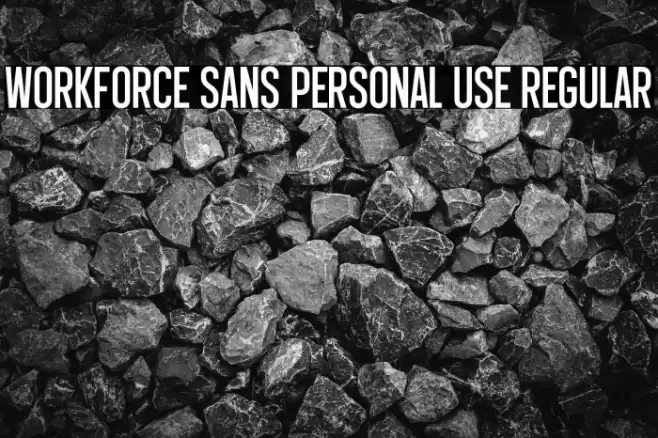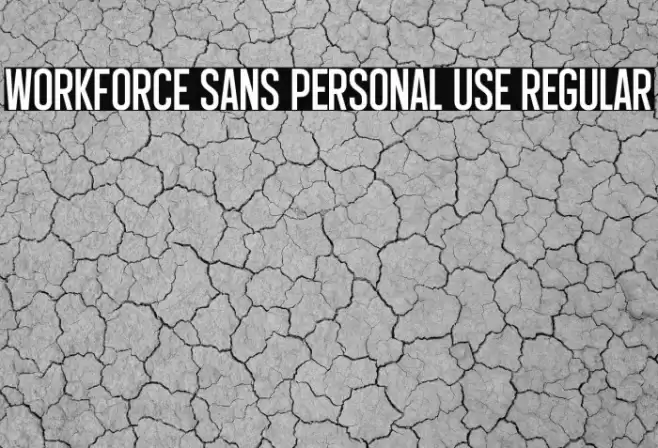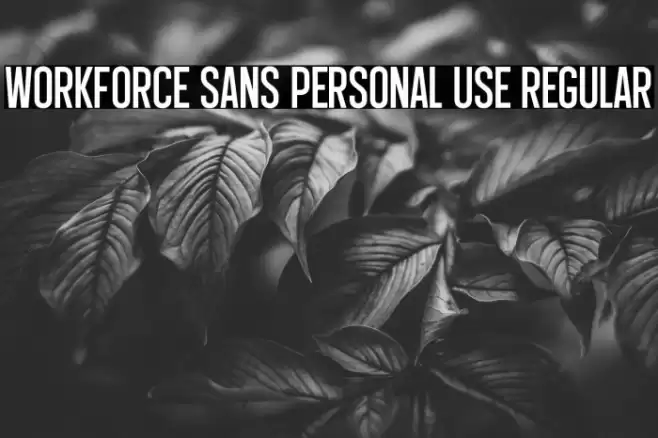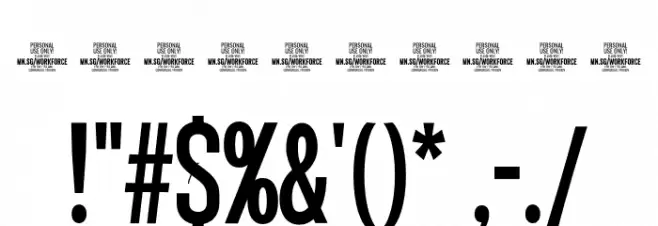
Workforce Sans PERSONAL USE Regular Font
Workforce Sans PERSONAL USE Regular Description
This font features a bold and impactful sans-serif style, characterized by its strong, clean lines and modern aesthetic. The uppercase letters are uniform in height, creating a cohesive and structured appearance. The font's design emphasizes clarity and readability, making it suitable for various applications. The characters are evenly spaced, contributing to its legibility, while the bold weight ensures that it stands out in any context. The font's simplicity and straightforwardness make it versatile for both digital and print media.
A bold, modern sans-serif font with clean lines and strong readability from Uncategorized fonts.
- Proposed Projects: Ideal for branding, headlines, posters, and digital media where a strong visual impact is needed.